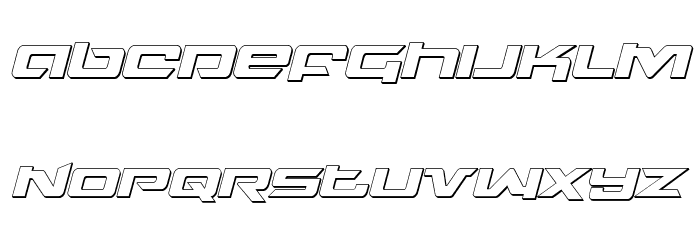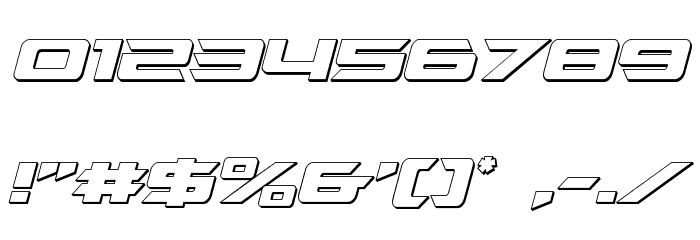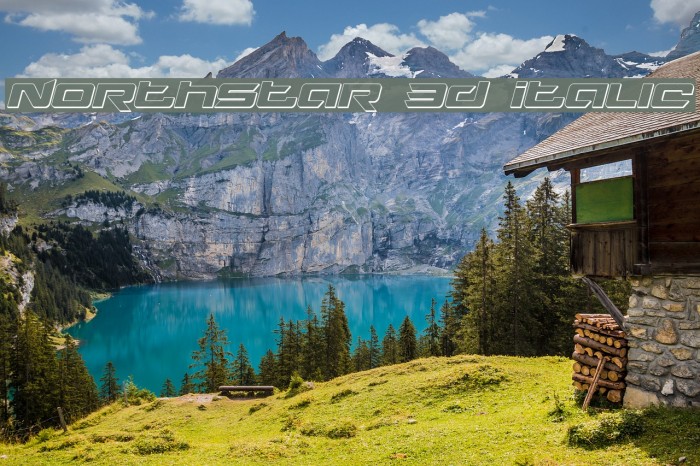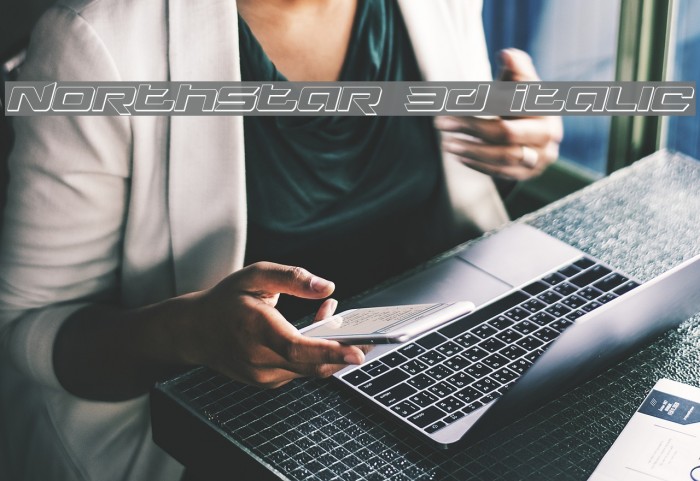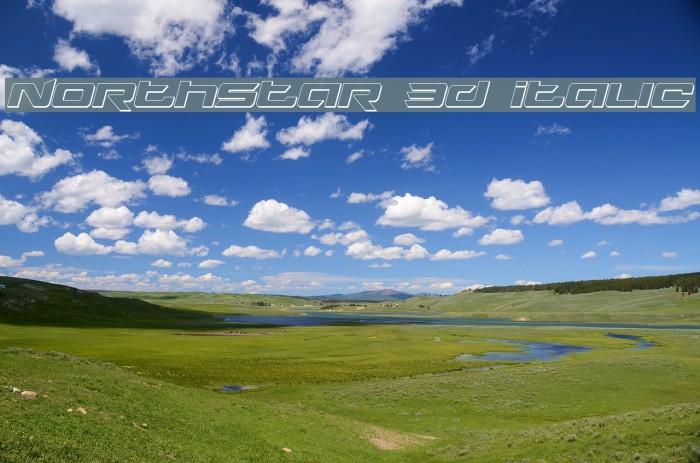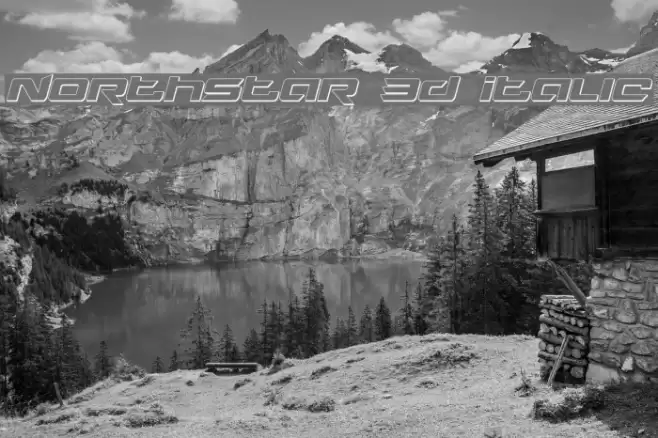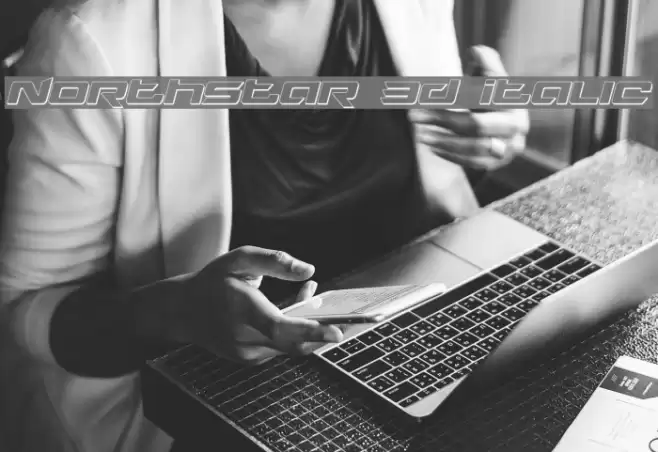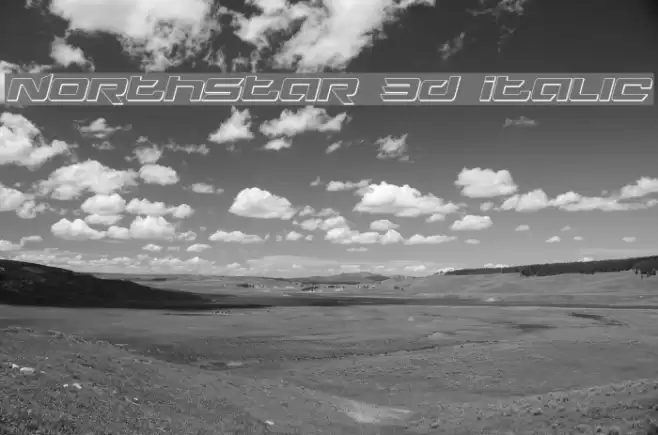
Northstar 3D Italic Font
This font features a dynamic and futuristic design with a three-dimensional effect that gives it a bold and striking appearance. The characters are outlined, creating a sense of depth and movement. The italic slant adds to the sense of speed and modernity, making it ideal for projects that require a contemporary and edgy look. The geometric shapes and sharp angles contribute to its high-tech aesthetic, while the consistent line thickness ensures readability. This font is perfect for capturing attention in headlines, posters, and branding materials where a strong visual impact is desired.
A futuristic, 3D italic font with sharp angles and a bold, outlined design.
- Proposed Projects: Ideal for sci-fi themed posters, technology branding, video game titles, and modern advertisements.